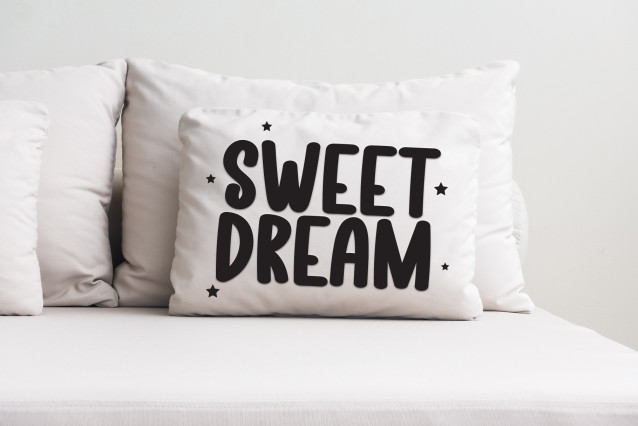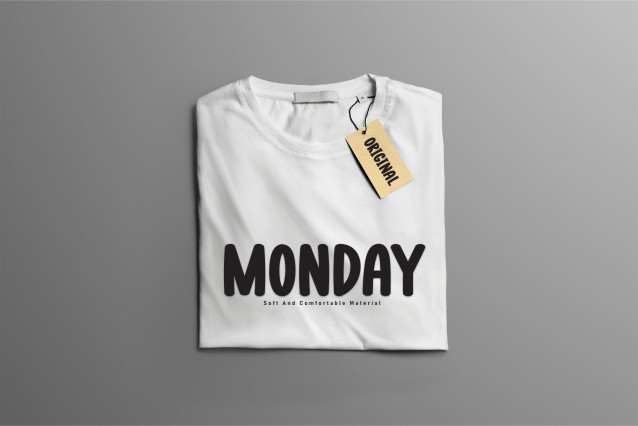
Simple Valentine Typeface, a charming and enchanting handwritten font – the perfect companion for your creative endeavors. With its characteristic sweetness and friendliness, this font brings life to every word. Its fresh, carefree style makes it a top choice for wedding invitations and greeting cards, giving them a warm, playful feel. Perfect for any design that needs a little bit of playfulness, this font has a unique beauty that makes every creation stand out.